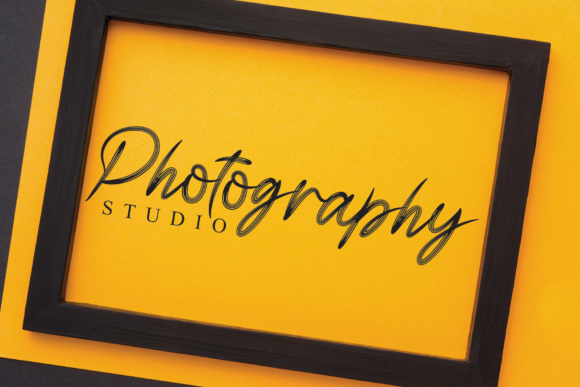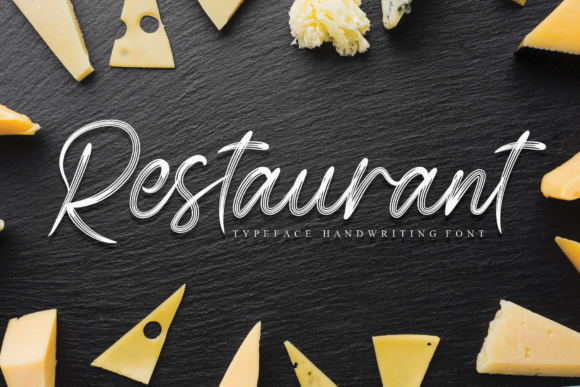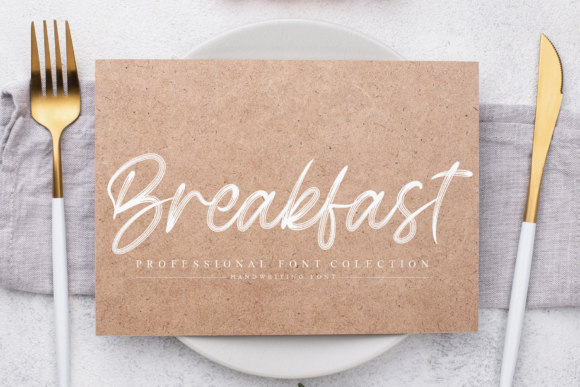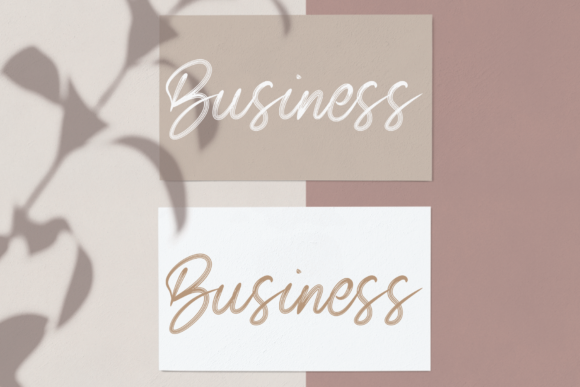
Introduction to Christmas Afternoon Font
As the holiday season approaches, many designers find themselves searching for the perfect font to capture the magic of the season. It was during one such creative moment, surrounded by twinkling lights and festive decorations, that I stumbled upon the enchanting Christmas Afternoon Font. This exquisite handwritten font is a treasure trove of creative possibilities, boasting a beautiful flow that makes it perfect for various design projects.
With its high-quality design and versatility, the Christmas Afternoon Font is a valuable resource for designers looking to elevate their creative projects. Whether you’re working on a logo, wedding invitation, or social media campaign, this font is sure to add a touch of elegance and sophistication. Plus, with its transparent background, you can easily layer it with other design elements to create a stunning visual effect.
Key Features of Christmas Afternoon Font
- High-quality design resource ideal for creative projects, including holiday cards, gift tags, and invitations.
- Unique, hand-drawn design elements, including ornaments, snowflakes, and festive patterns, add a touch of whimsy to any project.
- Perfect for designers seeking a festive and elegant design resource for their creative projects.
Honest Review: Christmas Afternoon Font
As a designer, I’m always on the lookout for high-quality design resources to elevate my creative projects. The Christmas Afternoon Font is one such resource that caught my attention. Here’s my honest review:
- ✨ High-quality design: The font is beautifully crafted, with intricate details that evoke a sense of festive cheer.
- ⚠️ Limited character set: The font only includes a limited set of characters, which may not be suitable for extensive text-based projects.
- ⚠️ Not ideal for small text: The font’s intricate details may make it difficult to read in small text sizes.
Overall, I’m impressed with the Christmas Afternoon Font’s unique design and high-quality craftsmanship. While it may have some limitations, it’s a great resource for designers looking to add a touch of festive flair to their creative projects. Whether you’re working on a holiday-themed project or simply want to add some seasonal charm, this font is definitely worth considering.
To get the most out of the Christmas Afternoon Font, be sure to pair it with high-quality graphics and images. You can also experiment with different font sizes and styles to create a unique and eye-catching design.
The Christmas Afternoon Font is perfect for holiday-themed designs, such as Christmas cards, gift tags, and social media graphics. You can also use it for general design projects that require a touch of winter wonderland charm.